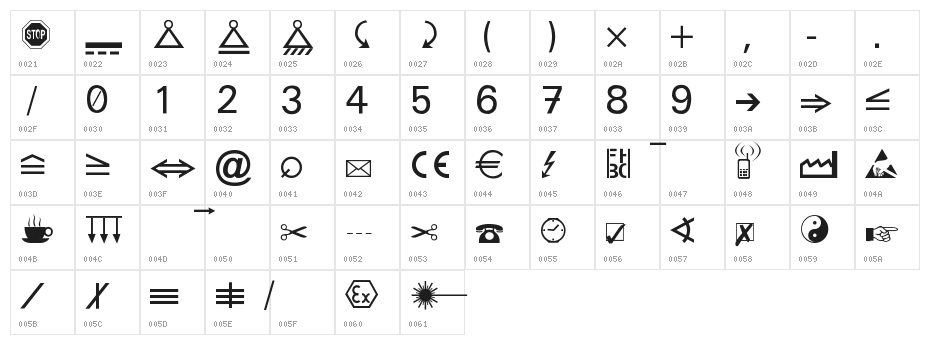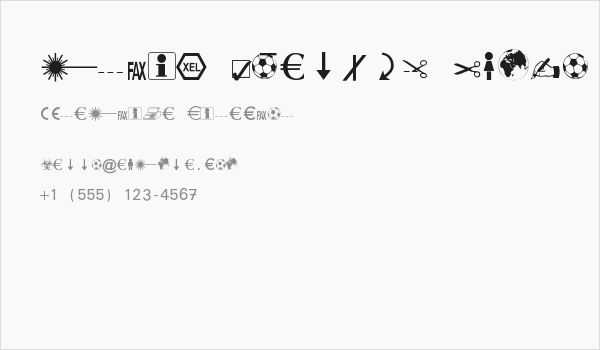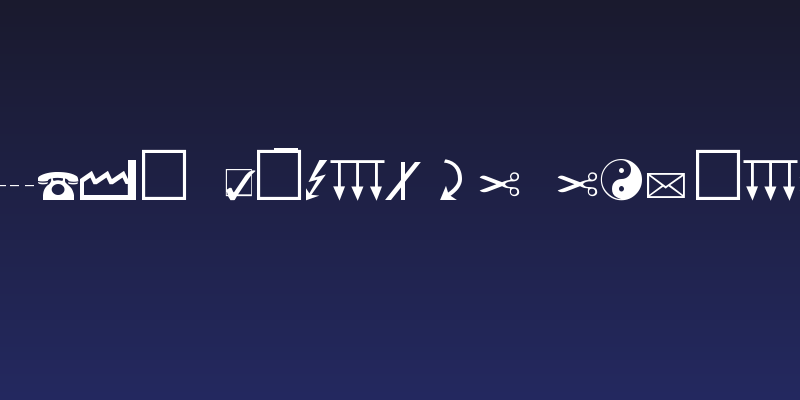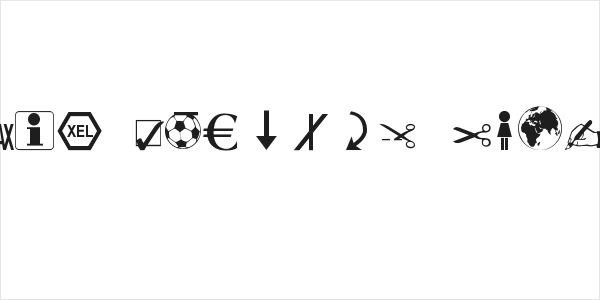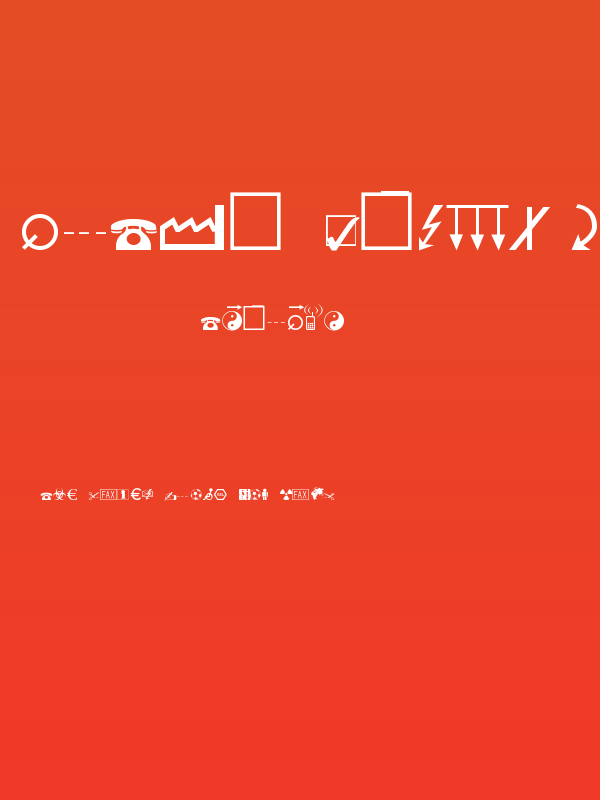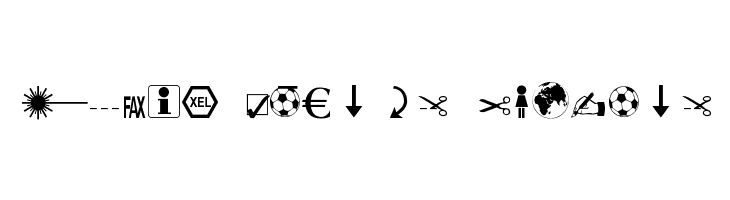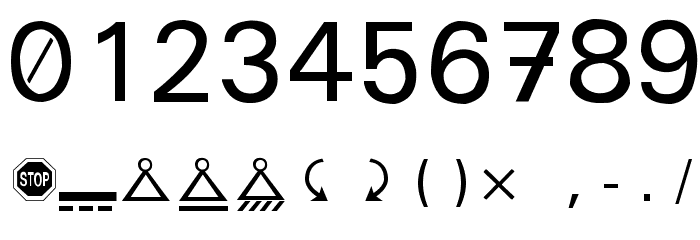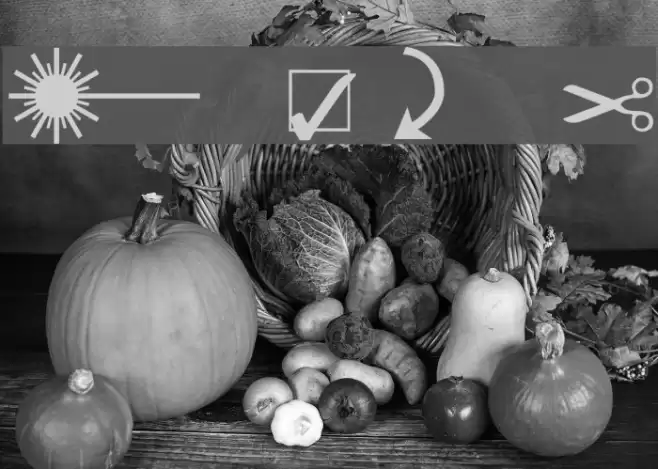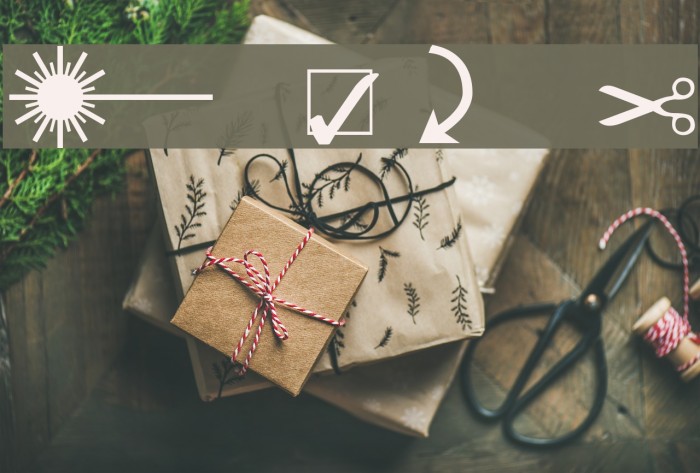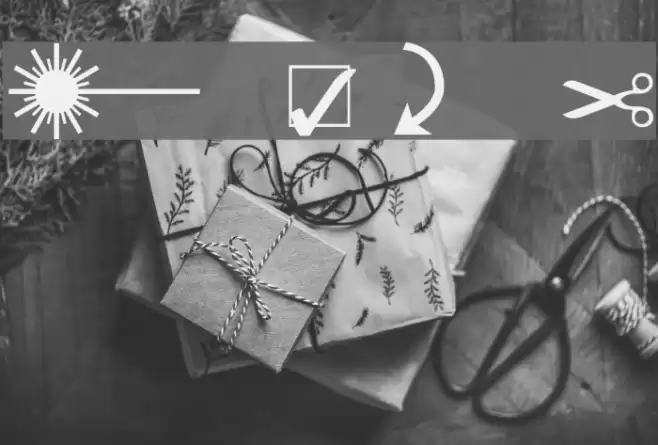
Martin Vogel's Symbols Font
Martin Vogel's Symbols Description
This collection features a diverse range of symbols and icons, each meticulously designed to convey specific messages or functions. The symbols include common communication icons like envelopes and telephones, financial symbols such as currency signs, and various industrial and informational icons. The style is clean and straightforward, ensuring clarity and ease of recognition. The icons are predominantly monochromatic, emphasizing simplicity and functionality. This set is ideal for use in instructional materials, signage, and digital interfaces where clear communication is paramount.
| Use Case | Signage, Digital interfaces, Instructional materials |
| Proposed Projects | Ideal for instructional materials, user interfaces, signage, and educational tools. |